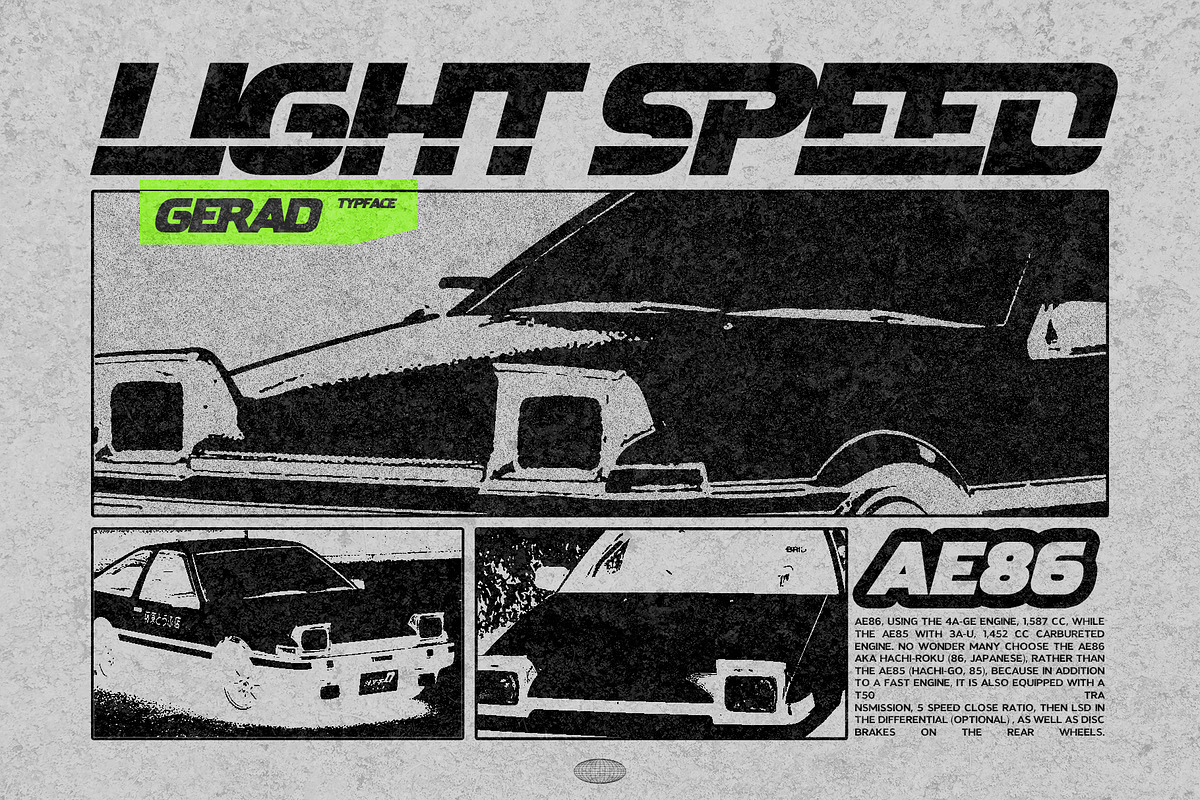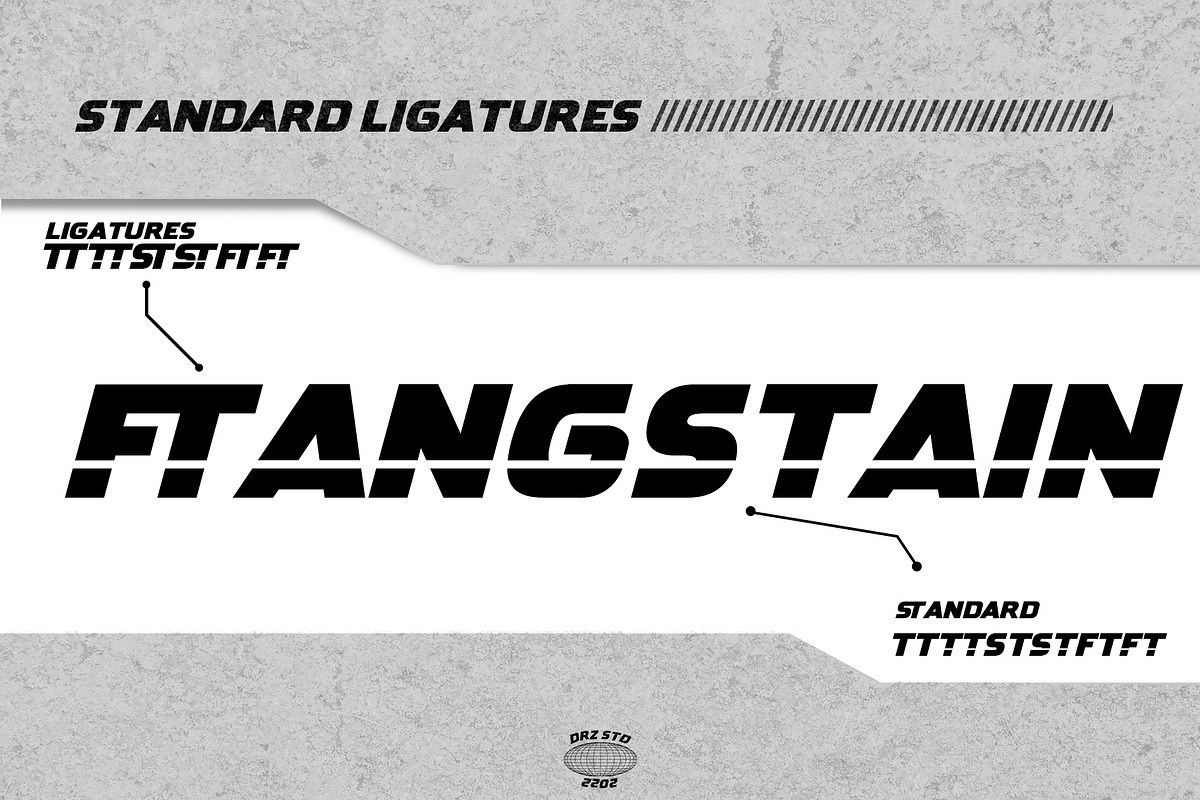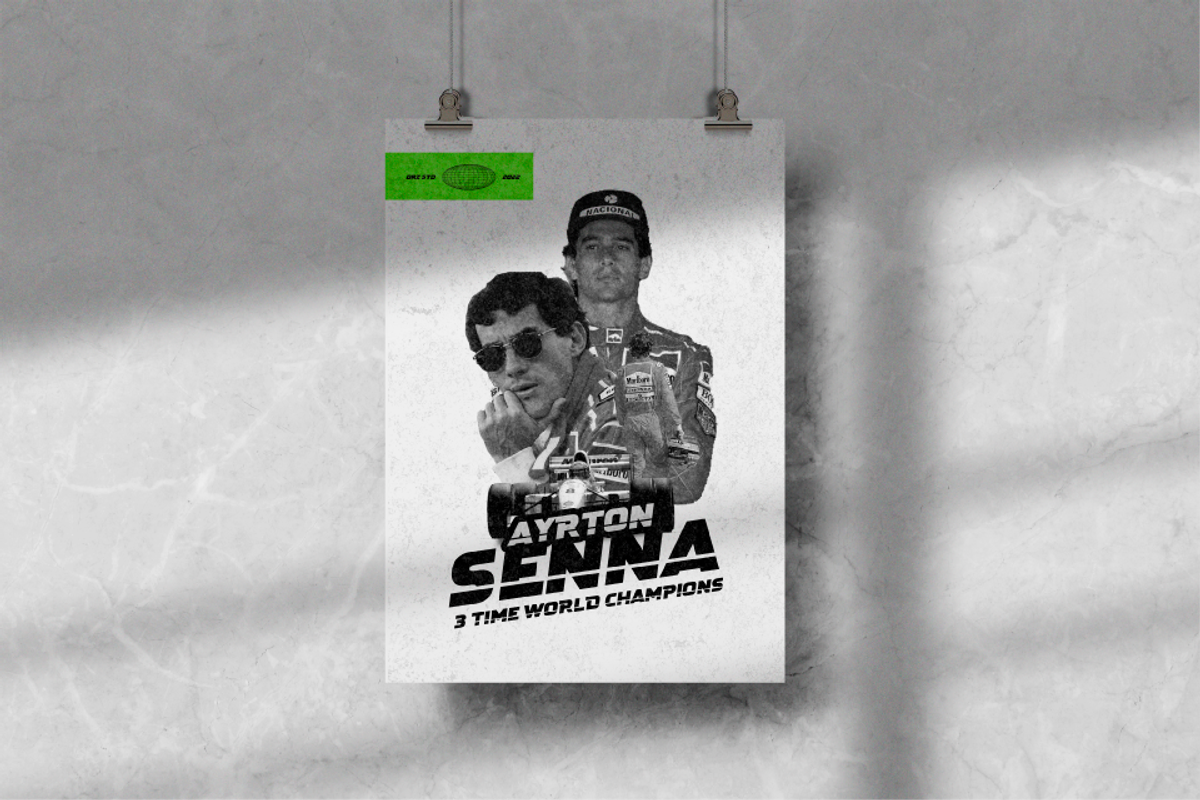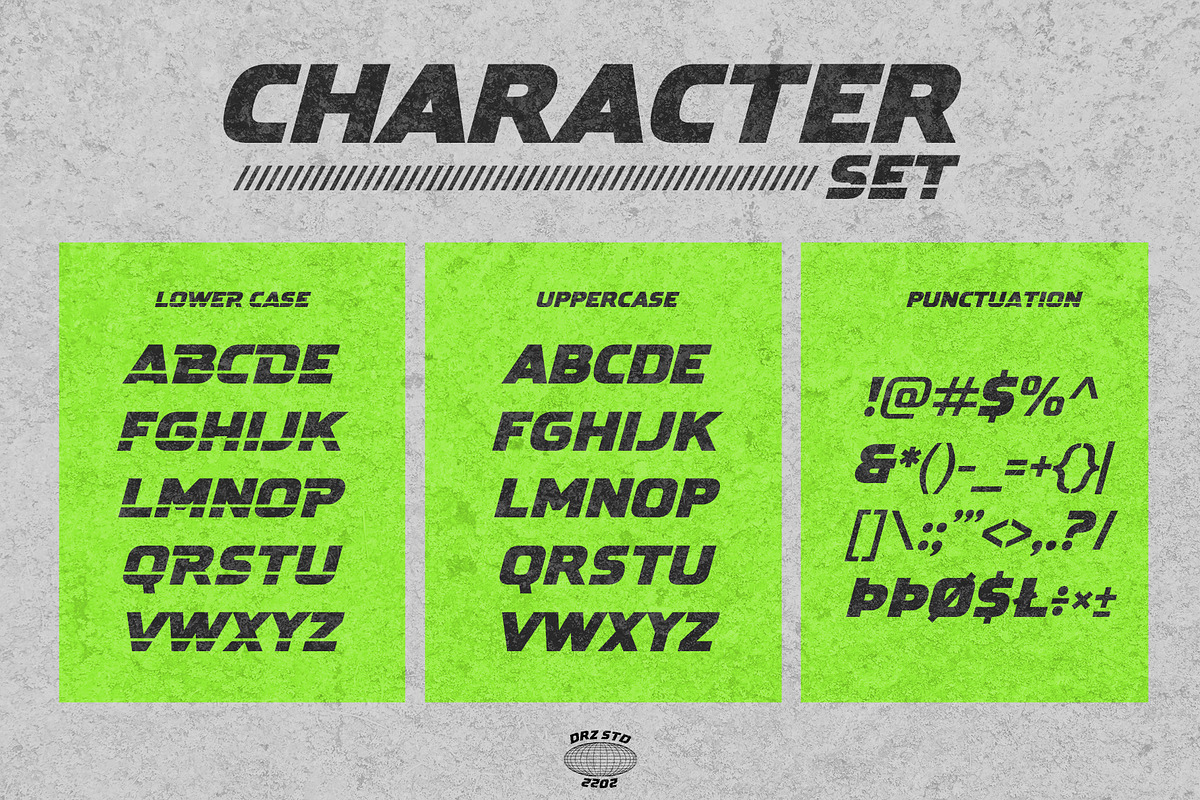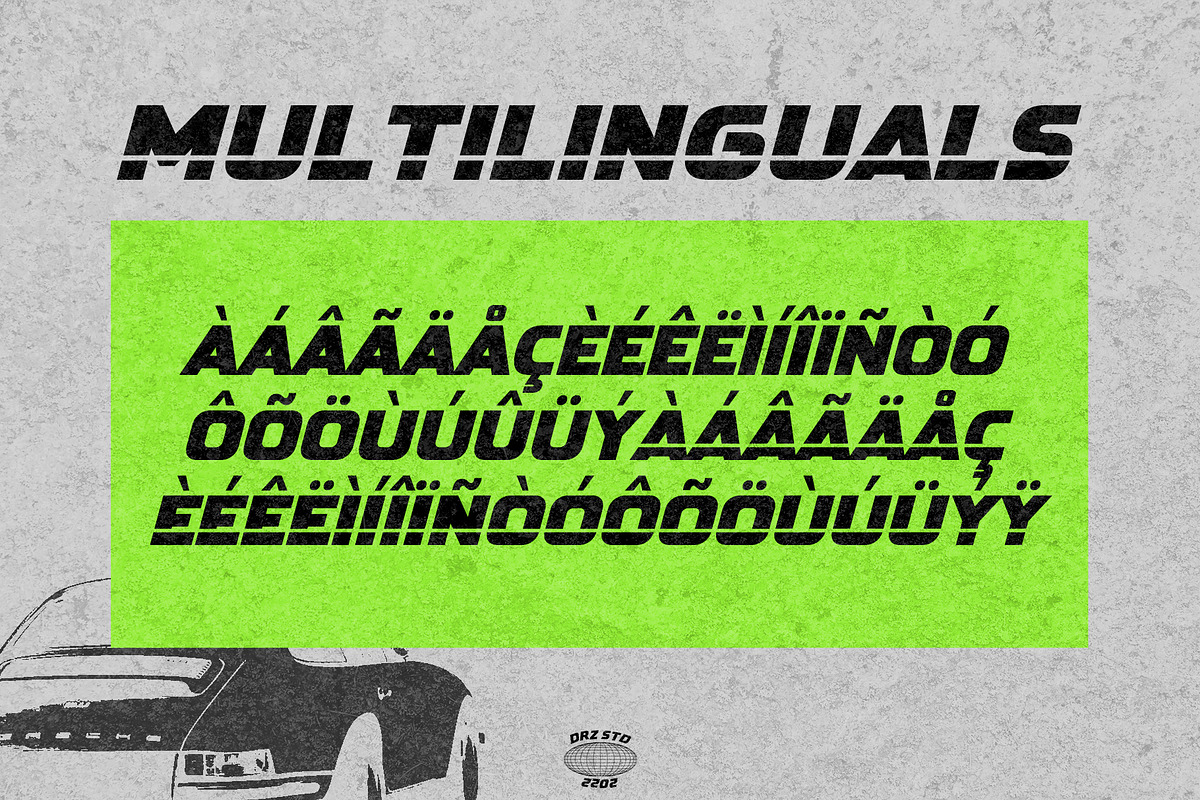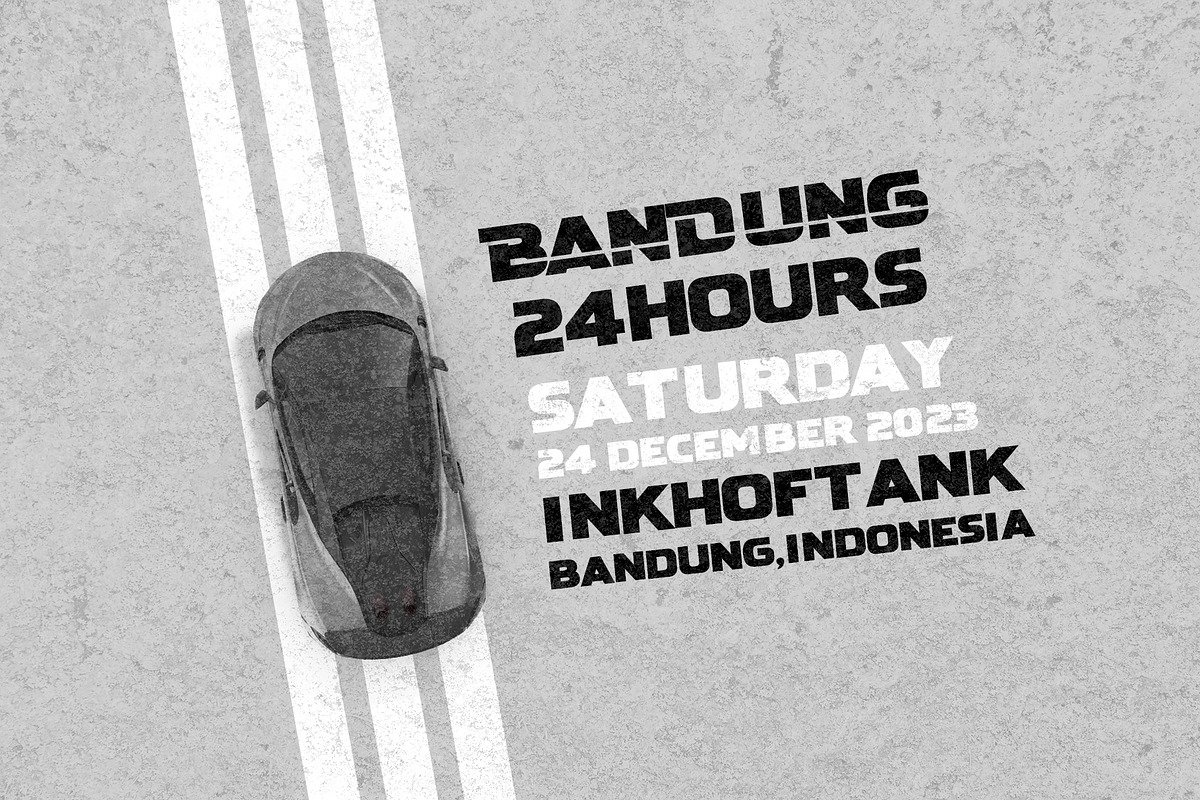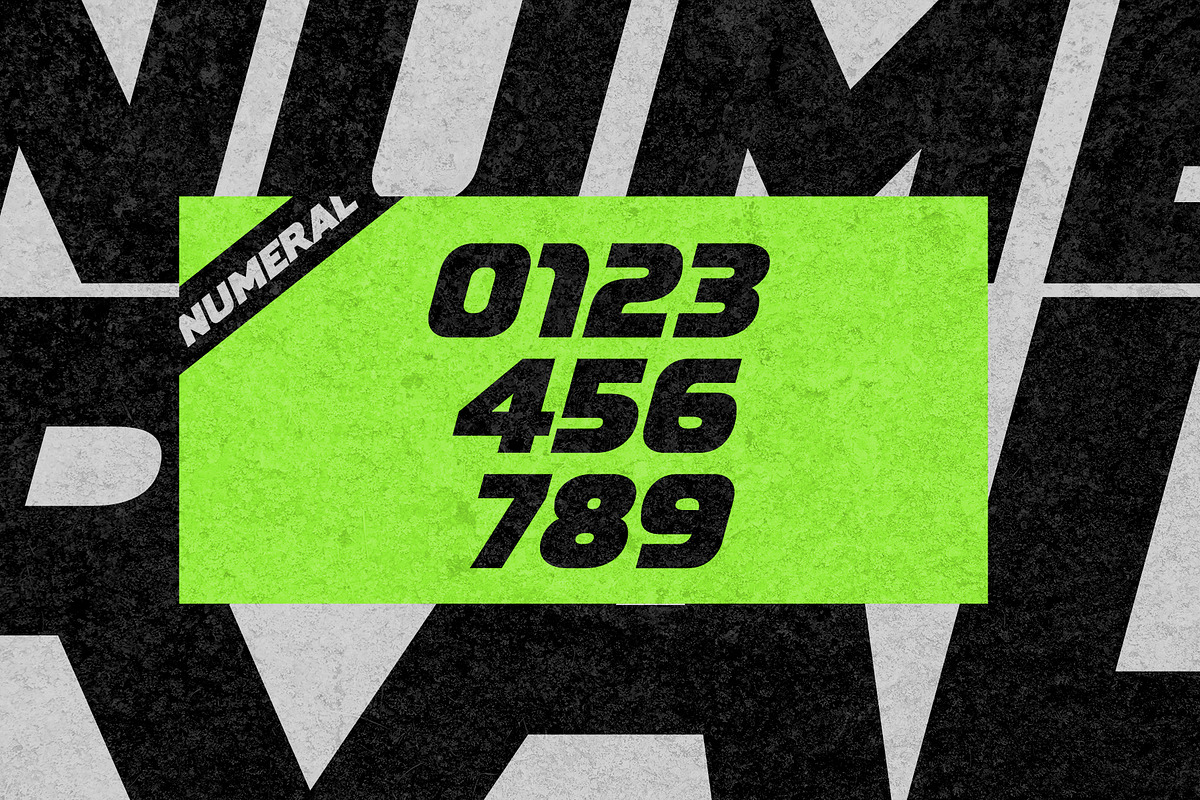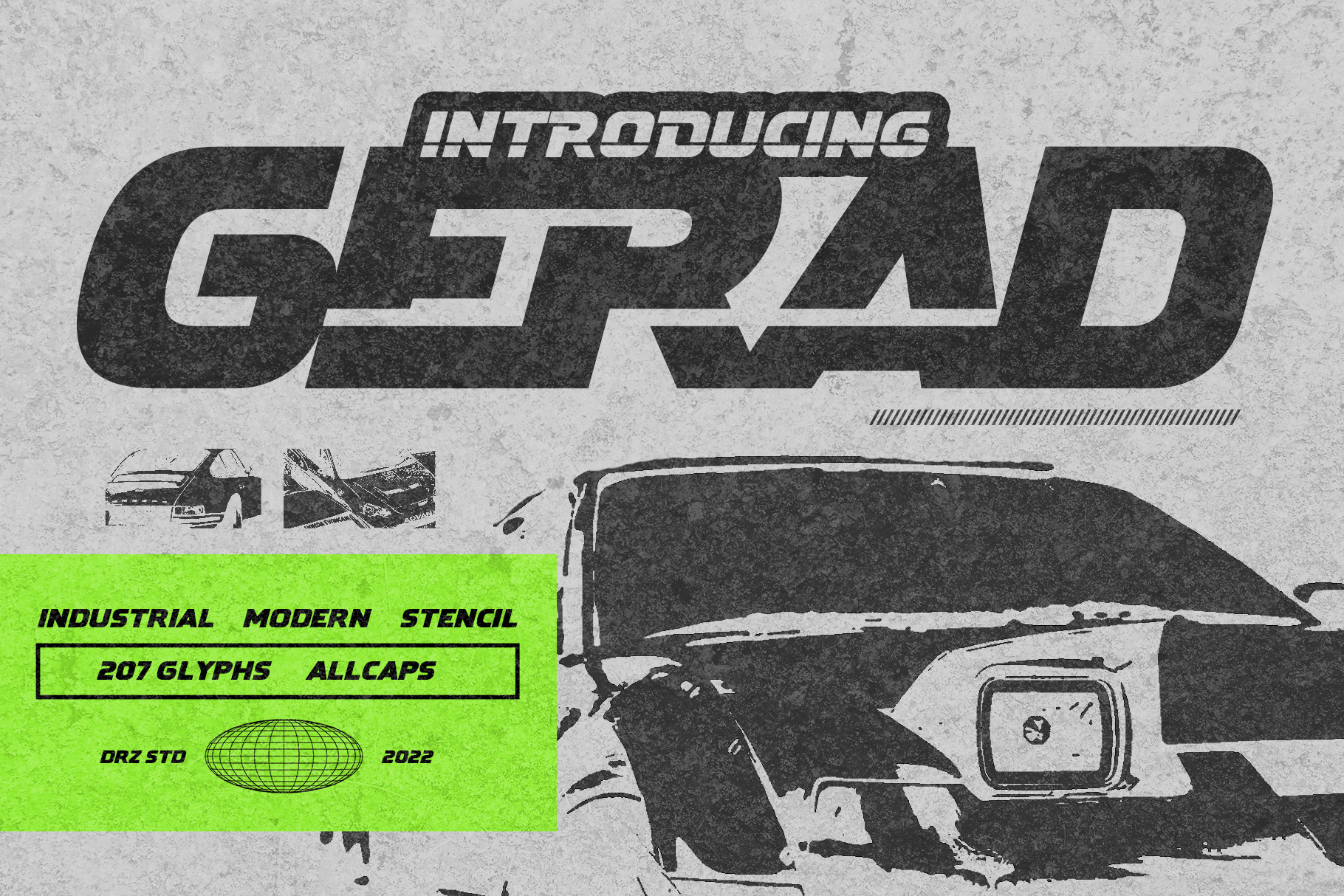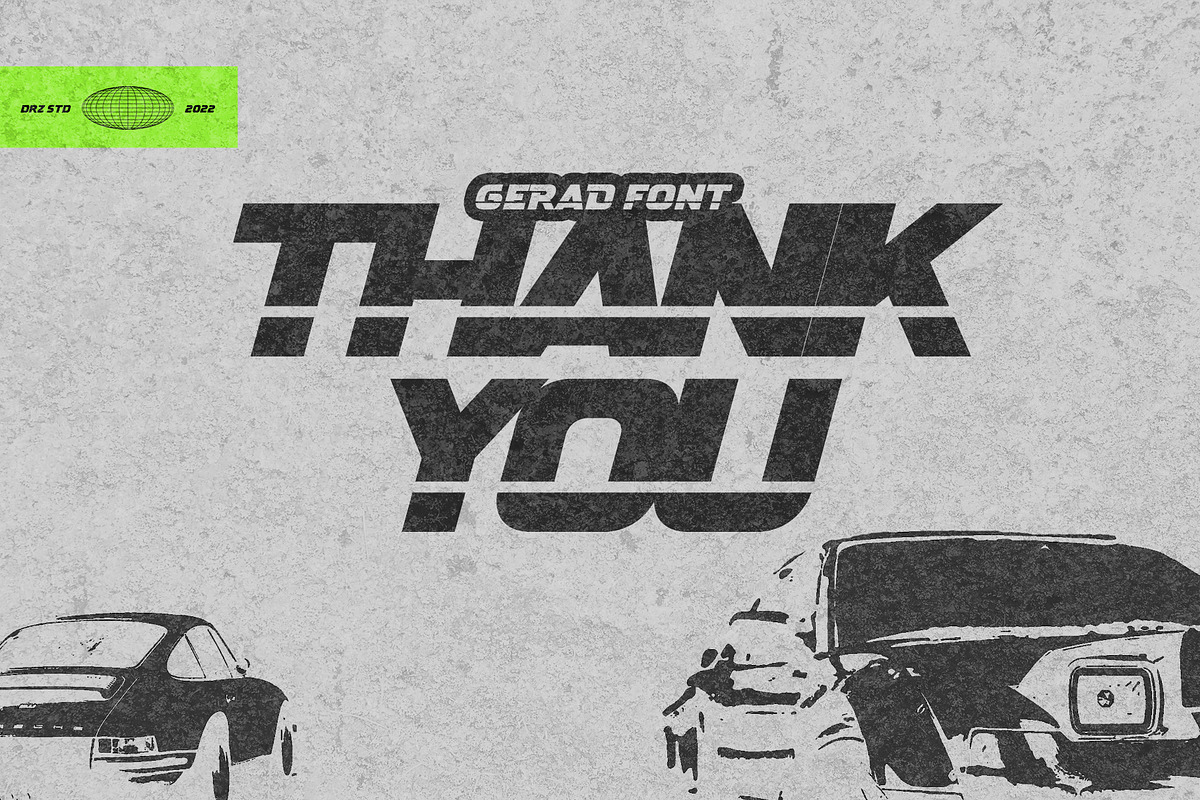
Gerad - Industrial Modern Font
Gerad is a Industrial Modern Stencil Font from Drizy studio. Offering all the basic styles you will need for a modern theme of your project.
Gerad Features:
Uppercase & Lowercase Numeral & Punctuation Multilinguals & Ligatures